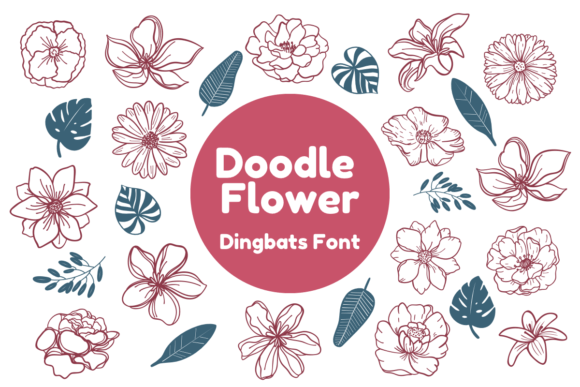
The Perfect Bloom for Your Creative Projects
Do you remember that moment when you finally found the perfect font for your wedding invitation, and it all came together like a beautiful bouquet? The font that added that extra touch of elegance and whimsy, making your design truly unforgettable? If you’re a designer or crafter looking to add a unique touch to your projects, you’re in luck because we’ve discovered the perfect addition to your toolkit: the Doodle Flower Font.
This delightful dingbats font is a masterclass in floral sketched style, making it the perfect choice for any project that requires a touch of whimsy and romance. Whether you’re designing a wedding invitation, creating a DIY craft, or decorating a room, the Doodle Flower Font is sure to add a beautiful and delicate touch. And the best part? It’s incredibly versatile, making it a valuable asset for any designer looking to take their projects to the next level.
Doodle Flower Font Key Features
- Unique Characteristics: The Doodle Flower Font features intricate, hand-drawn designs with a mix of flowers, leaves, and other organic elements, creating a whimsical and playful atmosphere.
- Font Style: The font is available in Regular and Bold styles, providing options for designers to create contrast and emphasis in their designs.
Doodle Flower Font Review
I must say, I was drawn to the whimsical nature of the Doodle Flower Font. ✨ The hand-drawn feel of the font gives it a charming, organic look that’s perfect for adding a touch of personality to your designs. The font is great for use in branding, invitations, and other creative projects where you want to add a little extra flair.
- The unique, playful feel of the font that sets it apart from more generic sans-serif fonts.
- The wide range of character sets available, including uppercase and lowercase letters, numbers, and punctuation marks.
- The font’s flexibility, which allows it to be used in a variety of contexts and designs.
- The font can be a bit difficult to read at small sizes, particularly in digital contexts where the font may not scale as well as other fonts.
- The font’s irregular shape and style may not be suitable for use in formal or professional contexts where a more traditional font is preferred.
Overall, I think the Doodle Flower Font is a great choice for designers who want to add a touch of whimsy and personality to their designs. While it may not be suitable for every project, it’s definitely worth considering for creative and playful projects where a unique font can really make a statement.
For best results, use the font in conjunction with a floral or whimsical design.
For a more realistic look, pair the font with hand-drawn illustrations or watercolor effects.
For a more cohesive look, use the font consistently throughout your presentation or document.
The Doodle Flower Font is ideal for:
Floral-themed greeting cards and gift tags
Children’s party invitations and decorations
Any project that requires a whimsical and playful touch
Experiment with different font sizes and colors to achieve a unique look.
Pair the font with illustrations or graphics to add visual interest.